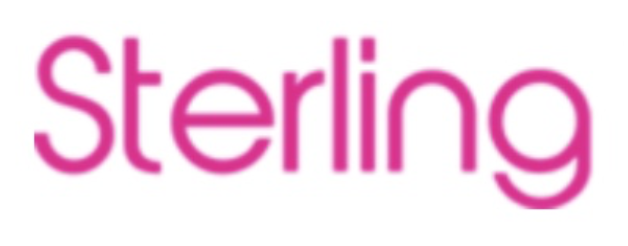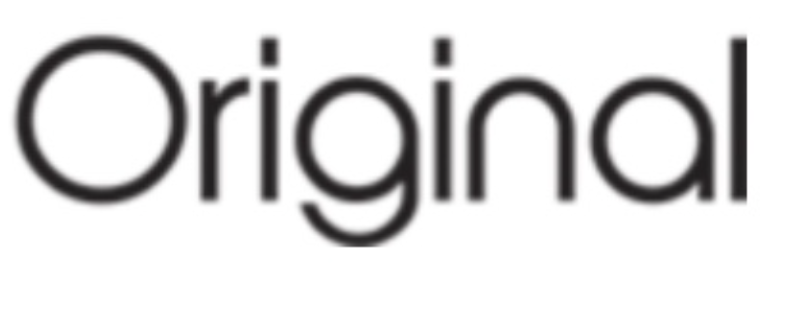
Font ID:: Basicv
Looking for some help ID'ing this pretty basic font here. Ran it through wtf but a lot of close ones with no exact matches....the dot on the i is square and not a circle which is where I'm noticing most fonts differ that are close.
Any exact matches?